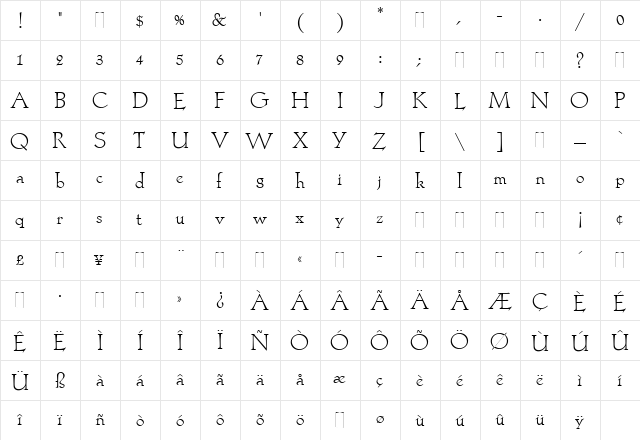
Locarno Light Regular
Design Context for Locarno Light Typeface
Locarno Light offers clean, dependable letterforms without strong stylistic allegiance, making it a practical choice for designers who need flexibility. The delicate stroke weight brings airiness and refinement to layouts.